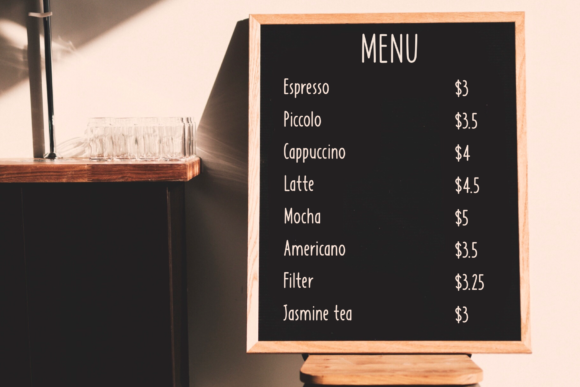
Simply Neatly Font
db-ku.com - Script & Handwritten -- Simply Neatly is a natural handwritten font that can be used for all chalkboard quotes or teaching material! Its authentic look and feel will add a personal and realistic feel to your designs.